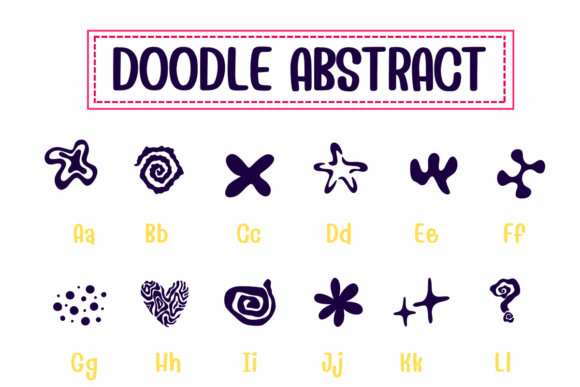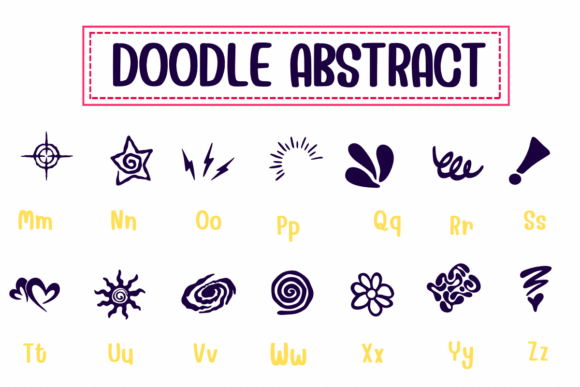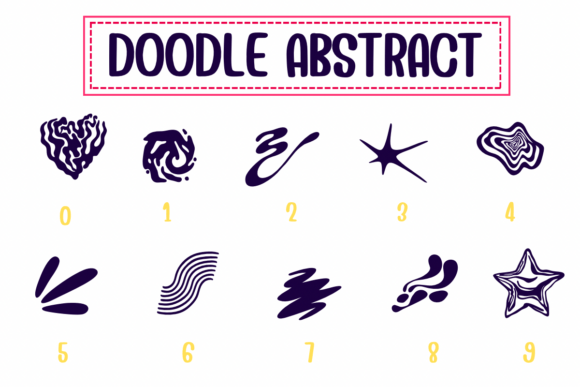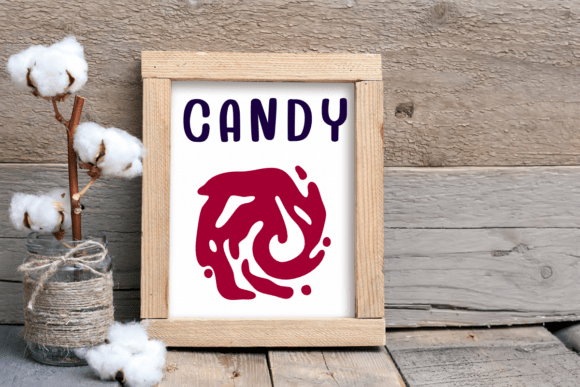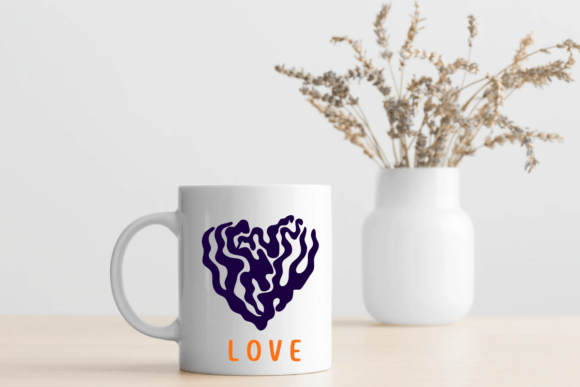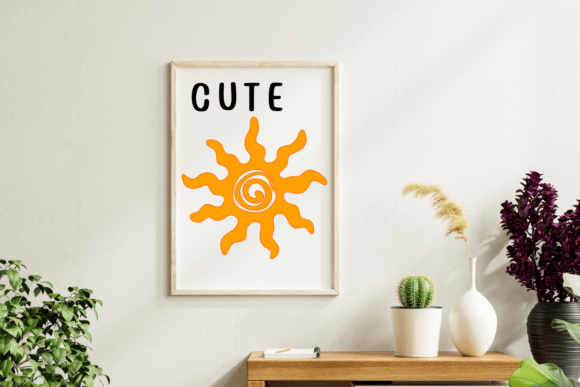
Where Creativity Meets Chaos: The Beauty of Doodles Abstract Font
Have you ever stared at a blank page, feeling the weight of expectation, and suddenly, a pen or pencil starts to move on its own? The lines start to dance, swirl, and splatter across the paper, unleashing a torrent of creativity and imagination. It’s in these moments of unbridled expression that the true beauty of design lies. And it’s this same energy that Doodles Abstract Font captures in its unique, hand-drawn aesthetic.
This font is not just a tool for designers; it’s a gateway to unleashing their creative potential. With its spontaneous, freeform energy, Doodles Abstract Font is the perfect addition to any design project. Its versatility and expressiveness make it ideal for modern designs, from pattern design and branding accents to packaging and digital stickers.
Doodles Abstract Font Key Features
- Unique Characteristics: The Doodles Abstract Font features a unique, hand-drawn design with abstract shapes and lines, adding a creative touch to any text-based element.
Doodles Abstract Font Review
I recently had the chance to work with the Doodles Abstract Font, and I’m excited to share my thoughts with you.
- Unique aesthetic: The Doodles Abstract Font has a one-of-a-kind look that’s perfect for adding a touch of whimsy to your designs.
- Customization options: The font comes with a range of customization options, including color and size adjustments, which can help you achieve the perfect look for your project.
- Easy to use: The font is relatively easy to use, even for designers who are new to working with custom fonts.
- Limited legibility: While the font is visually appealing, it can be difficult to read in certain contexts, especially at small font sizes.
- Limited character set: The font’s character set is relatively limited, which can make it difficult to use for longer blocks of text.
Overall, I think the Doodles Abstract Font is a great choice for designers who want to add a touch of creativity to their projects. While it has some limitations, its unique aesthetic and customization options make it a valuable tool for any designer’s toolkit.
Use Doodles Abstract Font to add a touch of creativity to your designs. Experiment with different font sizes and colors to create a unique look. You can also pair it with other fonts to create a visually appealing combination.
Doodles Abstract Font is perfect for creating eye-catching social media graphics, promotional materials, and digital invitations. It’s also great for adding a creative touch to presentations, reports, and other business documents.
Alternatives to Doodles Abstract Font for Designers
Great Vibes is a handwritten font that features a mix of cursive and script styles. It’s perfect for creating a friendly and approachable atmosphere in designs. When to use: Blog posts, social media graphics, and advertising materials that require a personal touch.
Comparison: While Great Vibes shares a similar handwritten feel with Doodles Abstract Font, it has a more elegant and refined look. Great Vibes is ideal for designs that need a touch of sophistication.
Pacifico is a beautiful, cursive script font that’s perfect for creating a sense of relaxation and calmness. It’s ideal for designs that require a soothing and gentle atmosphere. When to use: Travel brochures, spa advertisements, and wellness-related materials.